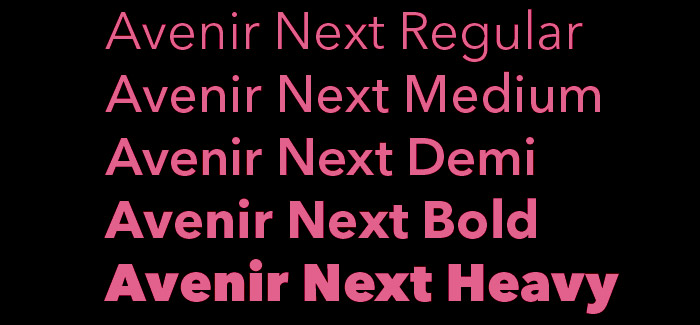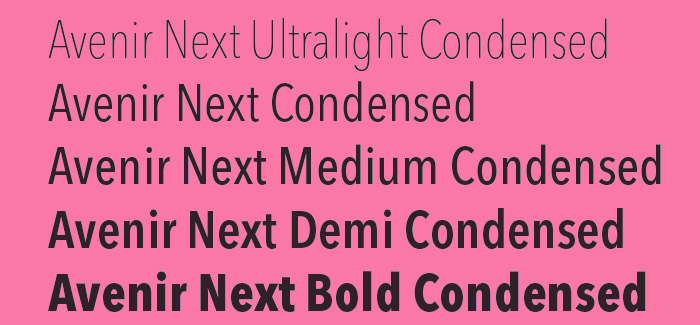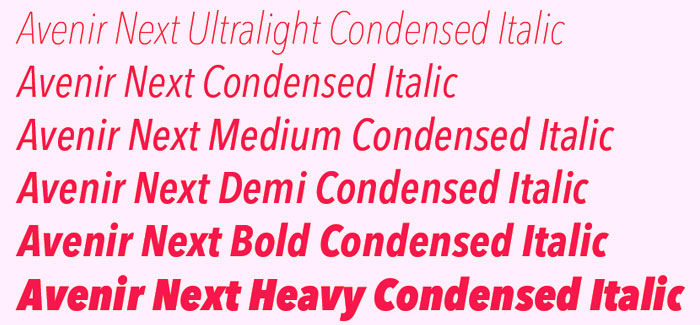
Avenir font
Adrian Frutiger designed Avenir font in 1988, after years of having an interest in sans serif typefaces.
In an interview with Linotype, he said he felt an obligation to design a linear sans in the tradition of Erbar and Futura, but to also make use of the experience and stylistic developments of the twentieth century.
The word Avenir means “future” in French and hints that the typeface owes some of its interpretation to Futura. But unlike Futura, Avenir is not purely geometric; it has vertical strokes that are thicker than the horizontals, an “o” that is not a perfect circle, and shortened ascenders. These nuances aid in legibility and give Avenir a harmonious and sensible appearance for both texts and headlines.